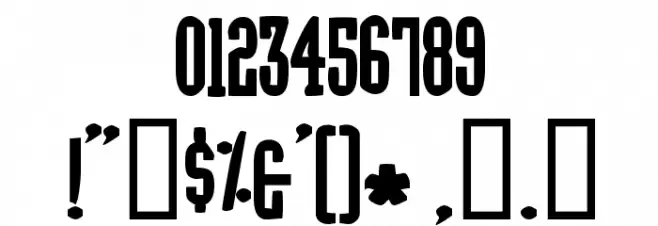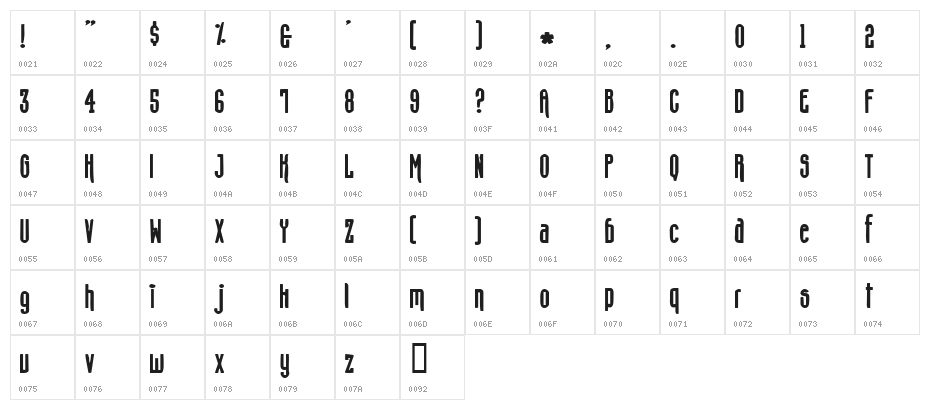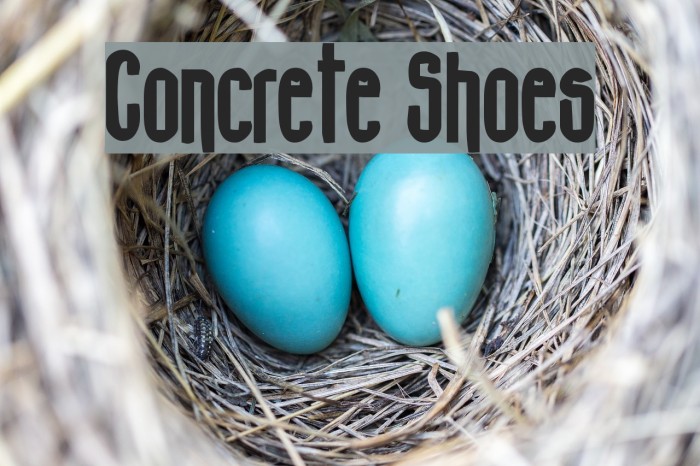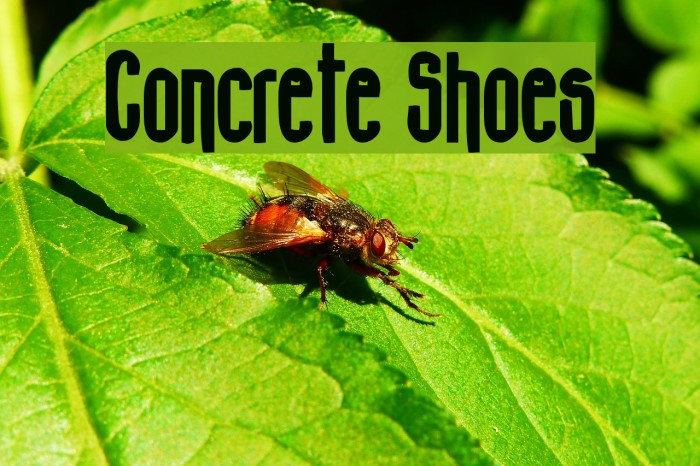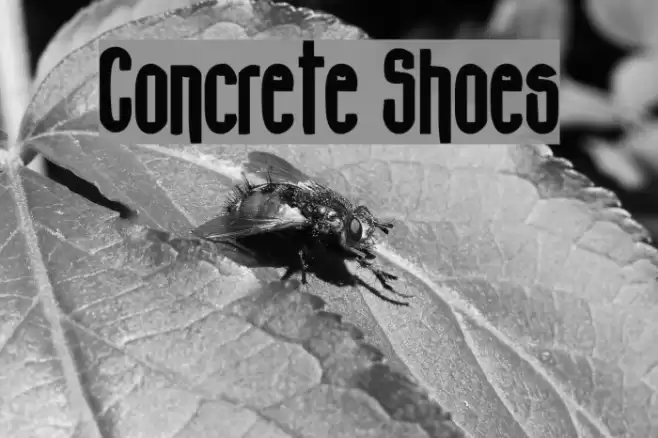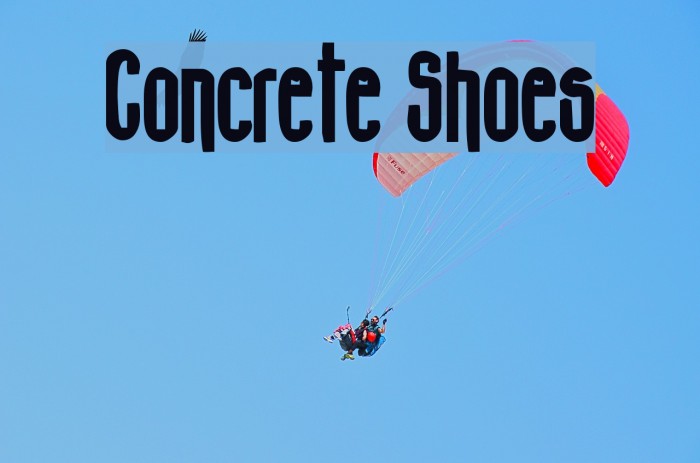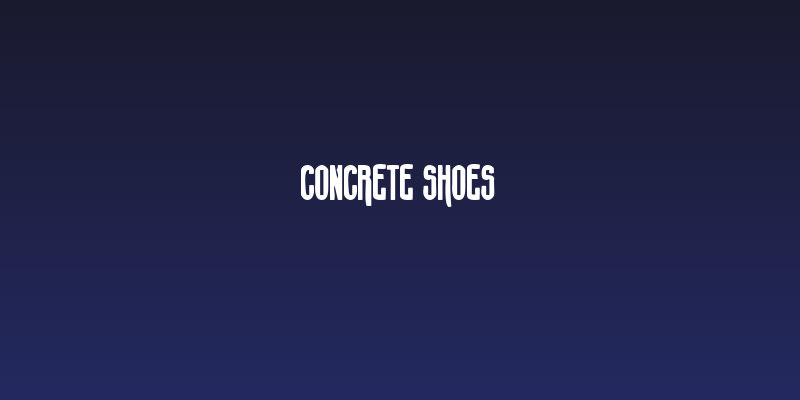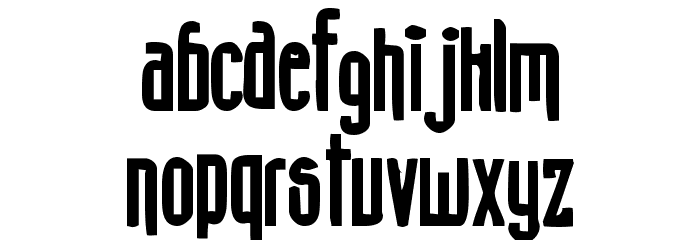
Concrete Shoes Font
Concrete Shoes Description
This font features a bold and condensed style with a distinctively modern and decorative flair. The uppercase and lowercase letters are designed with a unique curvature and angularity that gives them a strong, impactful presence. The numerals and special characters maintain this cohesive style, making the font suitable for attention-grabbing designs. The characters are tightly spaced, enhancing the compact and robust appearance. The high contrast in stroke thickness adds to the dramatic and striking look, making it ideal for projects that require a bold statement.
| Proposed Projects | Ideal for posters, logos, branding, and headlines where a strong visual impact is desired. |